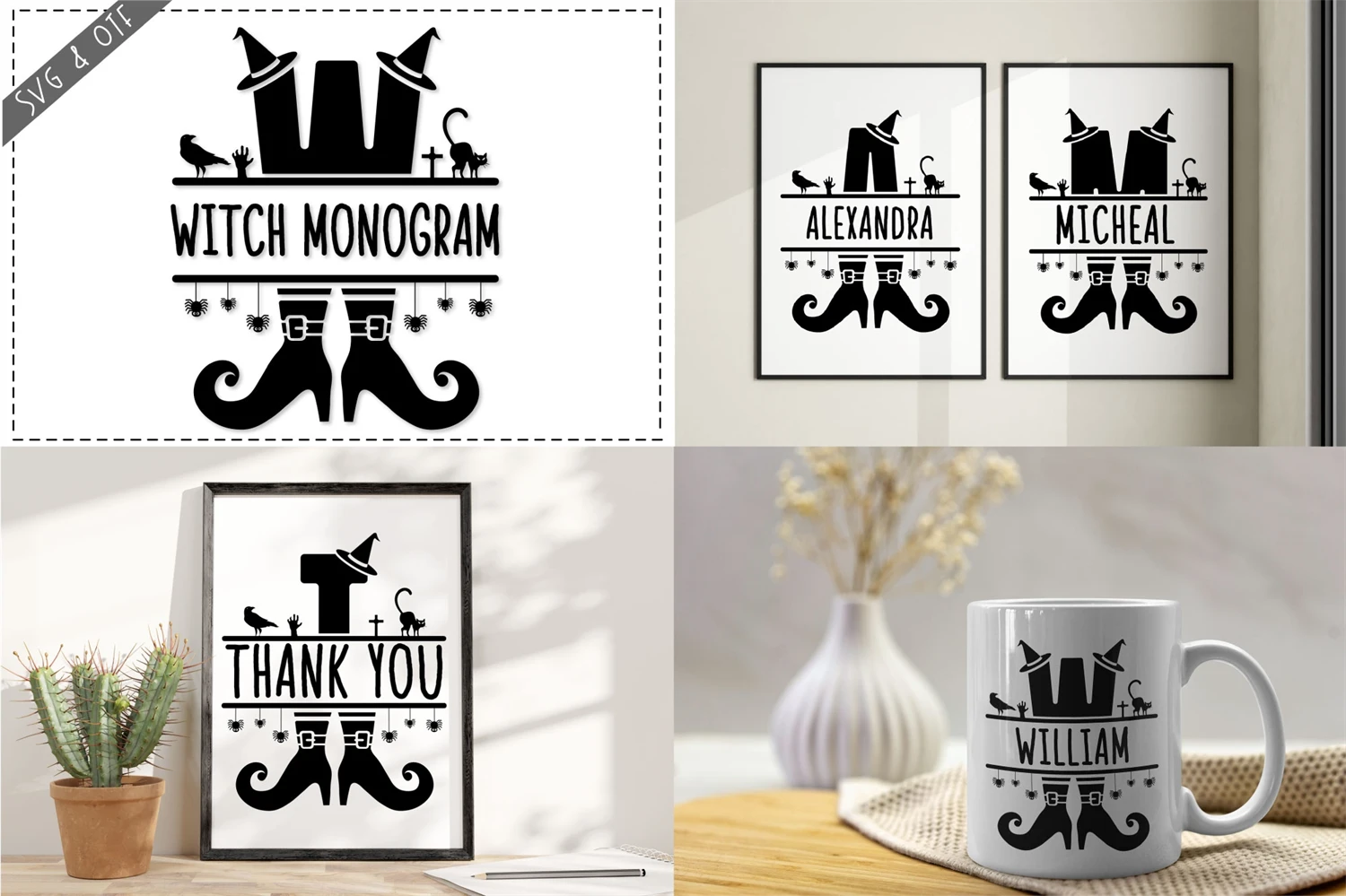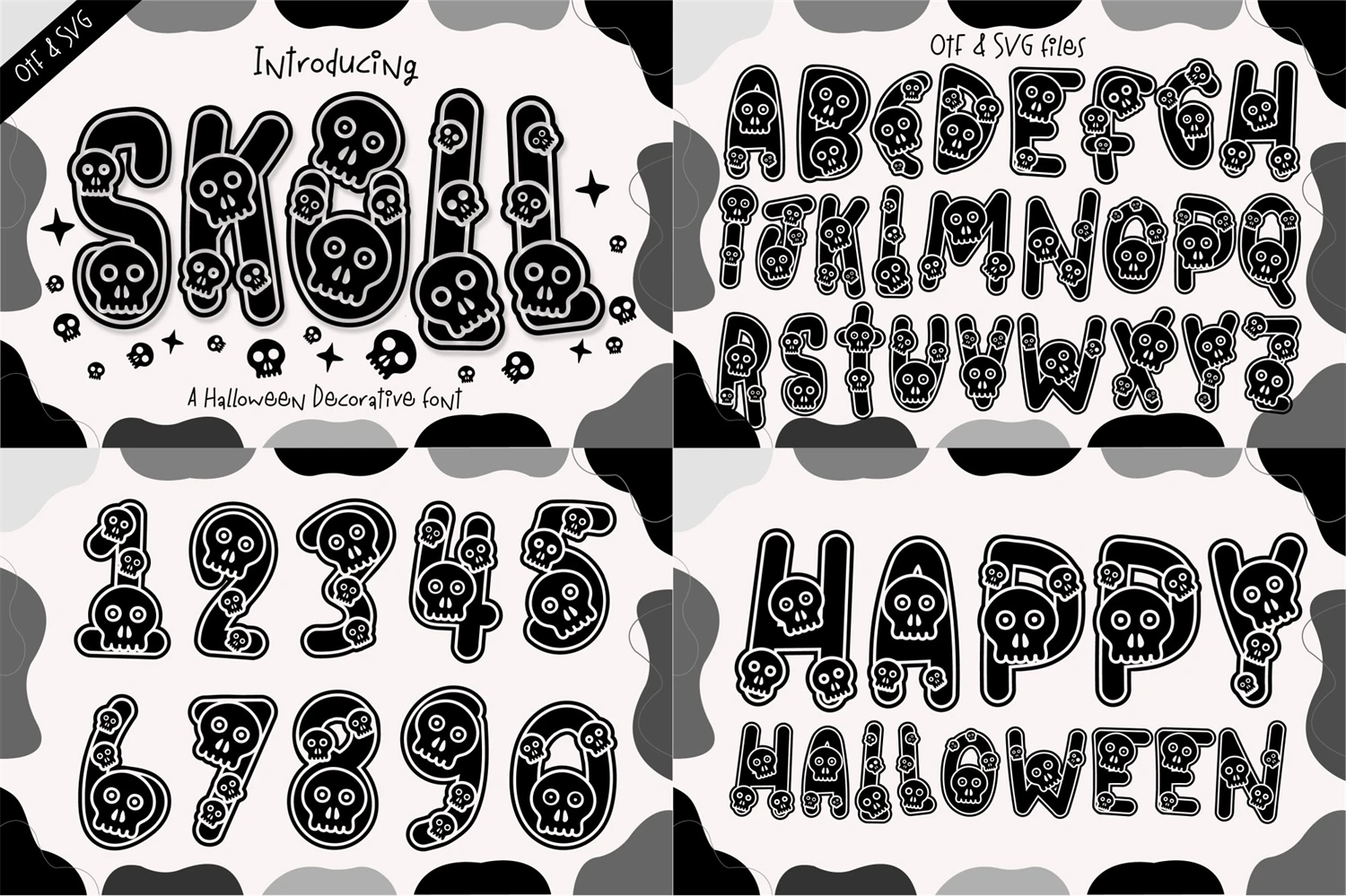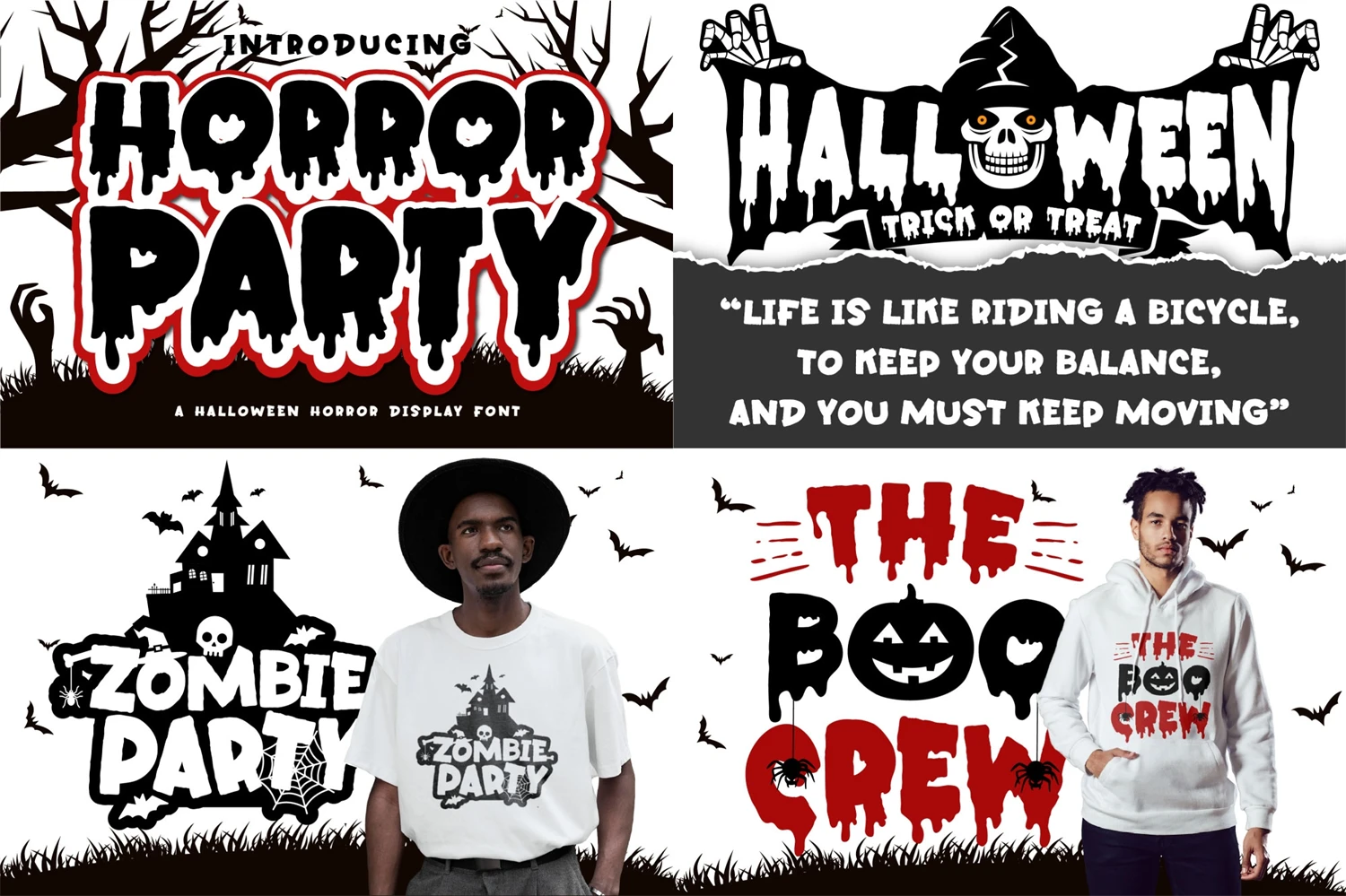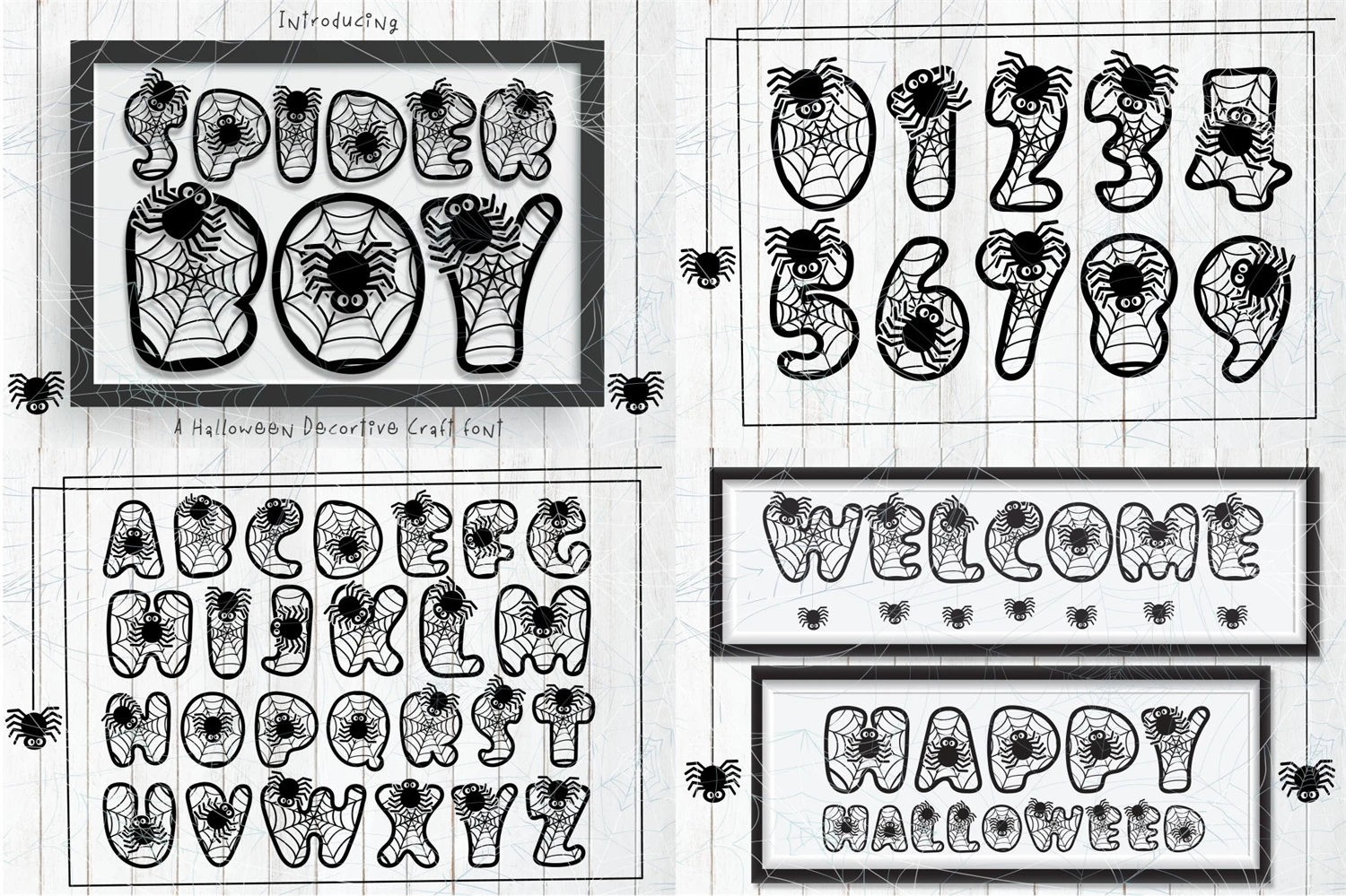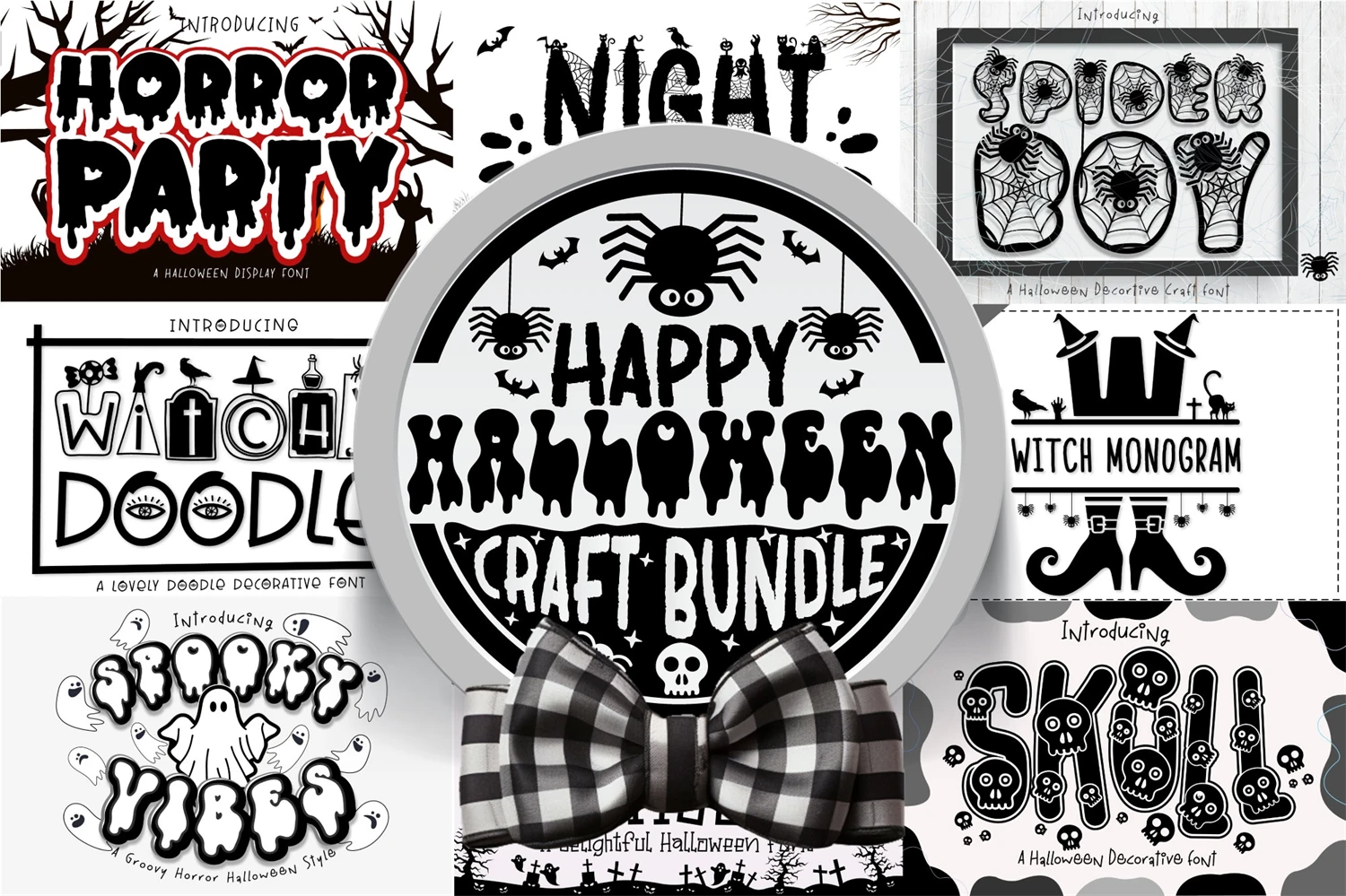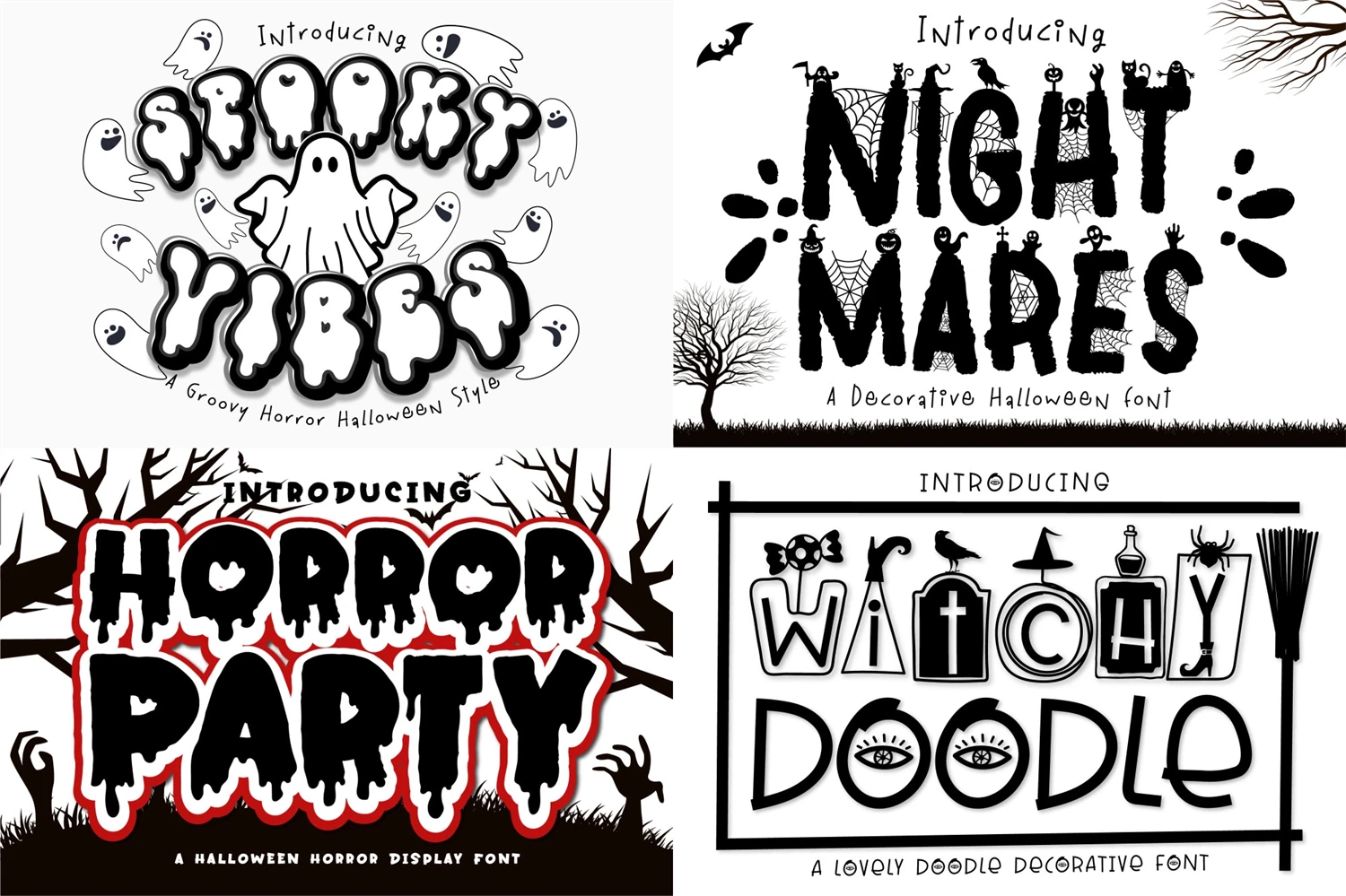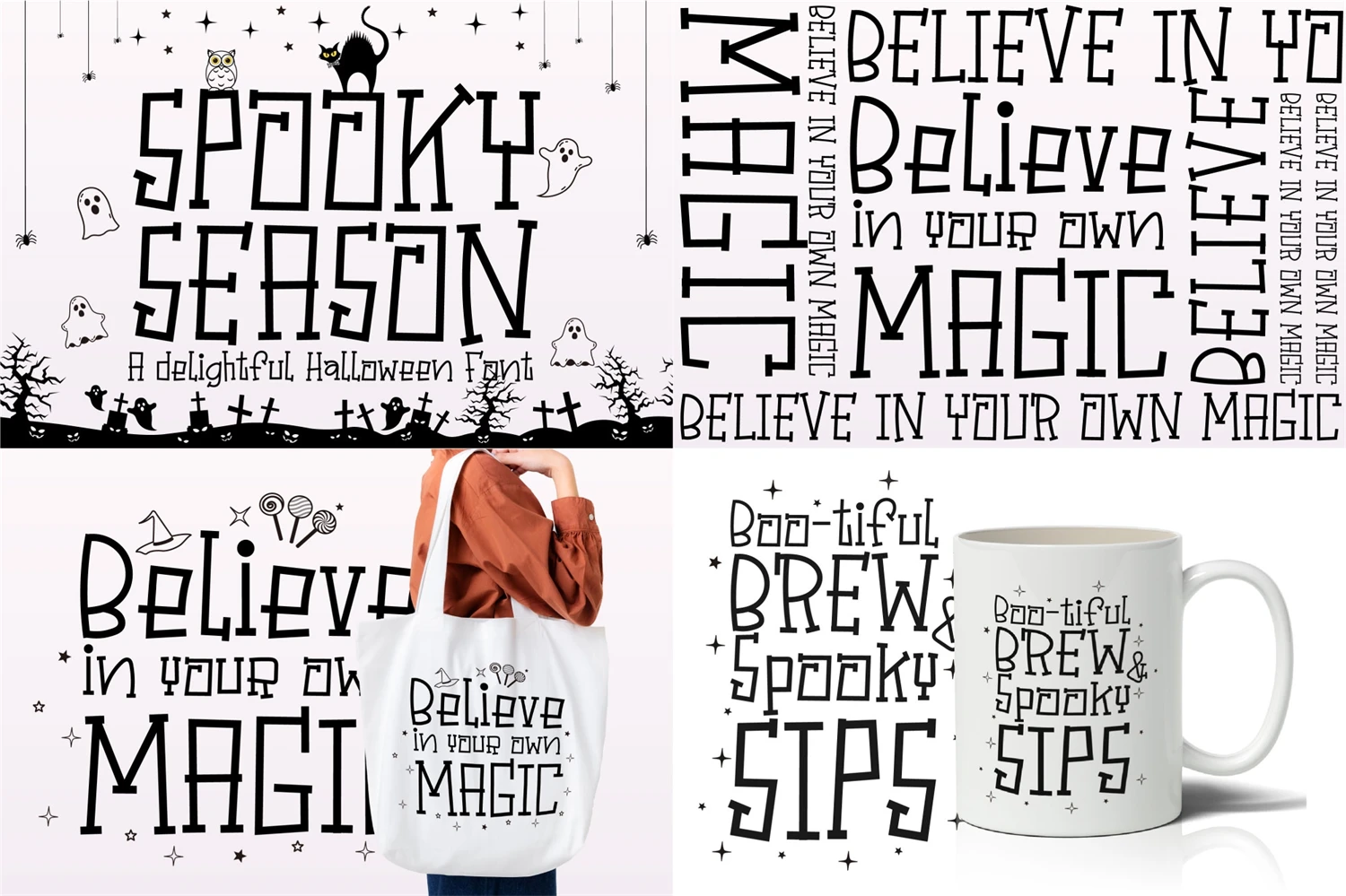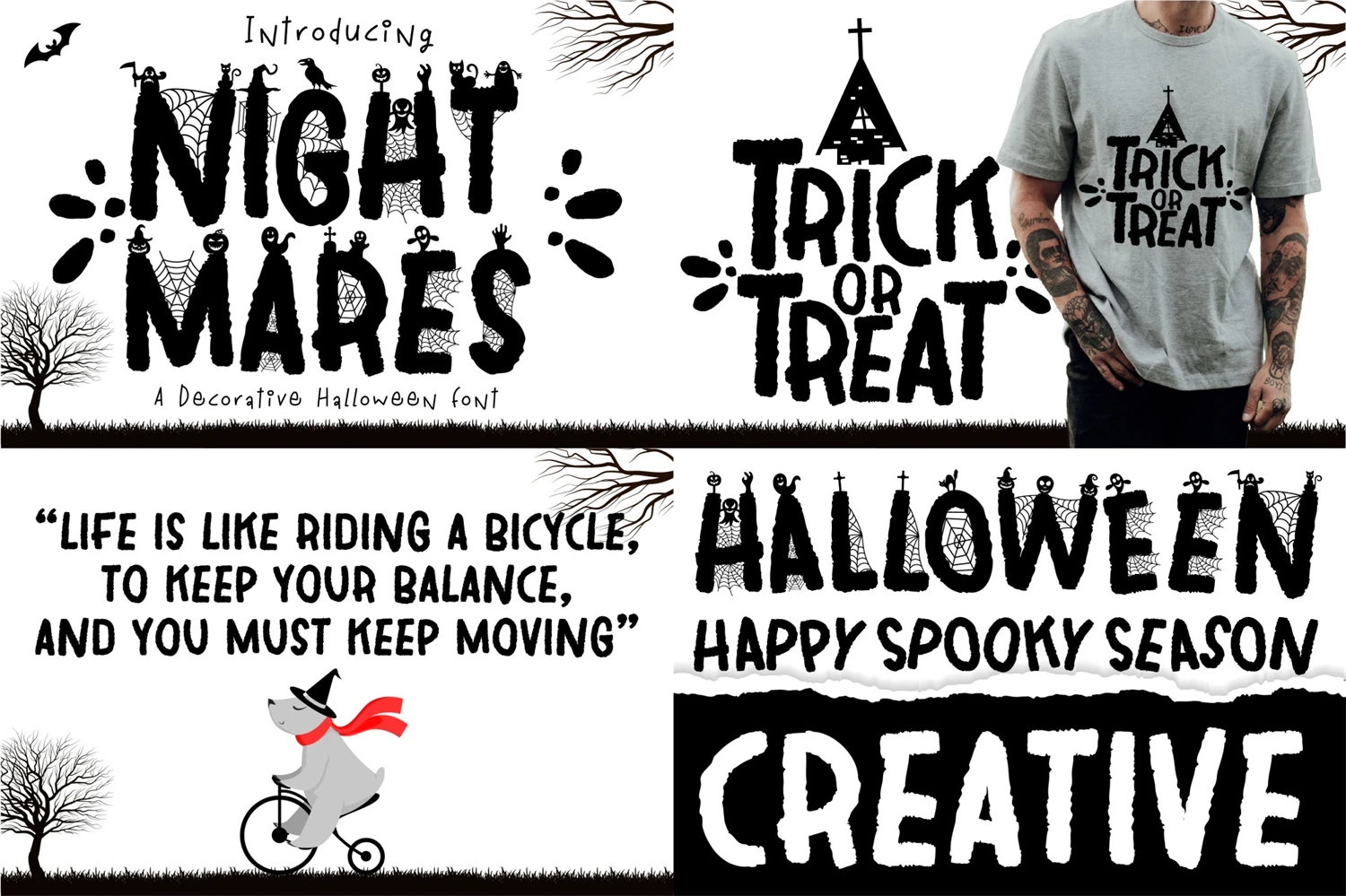
Unleash your creativity this Halloween with the Happy Halloween Craft Bundle font! Designed for DIY Halloween craft projects, this font adds a playful and spooky touch to your designs. Craft invitations, decorations, and more with ease, as this font perfectly captures the spirit of the season. Transform your projects into spooktacular delights that will enchant both kids and adults alike.